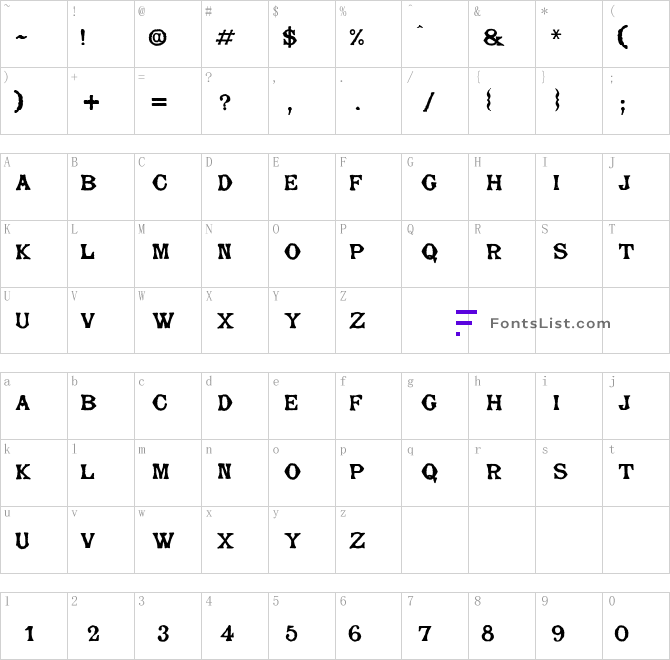
- Font Name:Bajorelle
Bajorelle-Regular.ttf is a very beautiful artistic font, Bajorelle-Regular.ttf is widely used in the design and printing of various books and pictures,Bajorelle-Regular.ttf has a strong visual impact,Bajorelle-Regular.ttf is a commonly used font in newspapers, magazines and books, and is used in posters, e-commerce Poster design, store design, logo design, font design and other fields.Bajorelle-Regular.